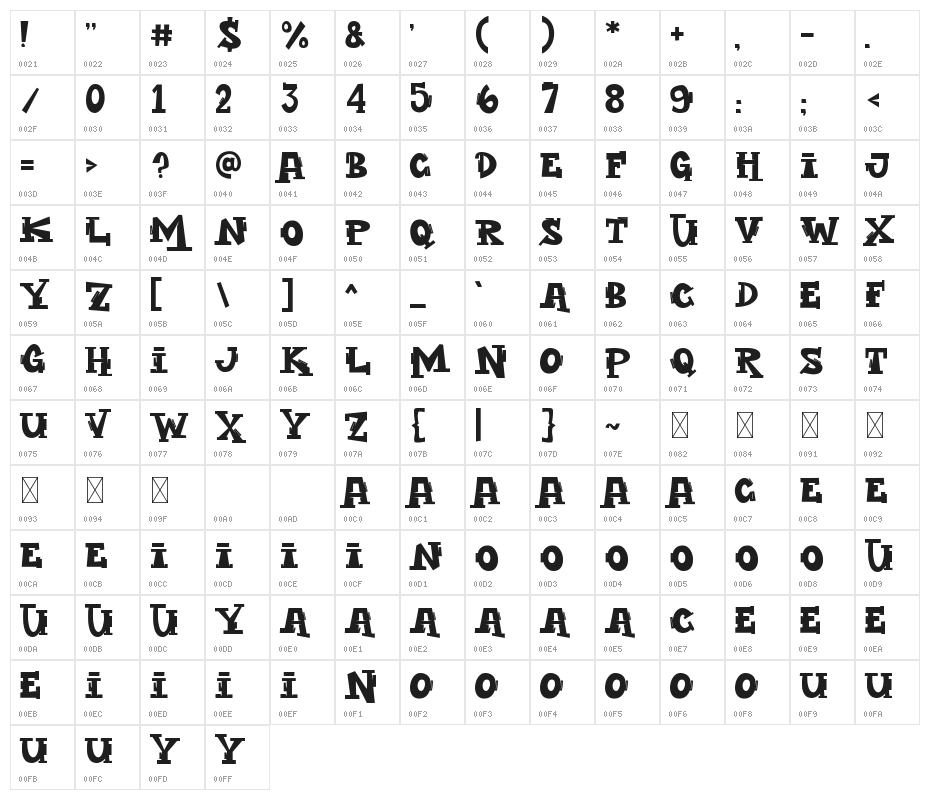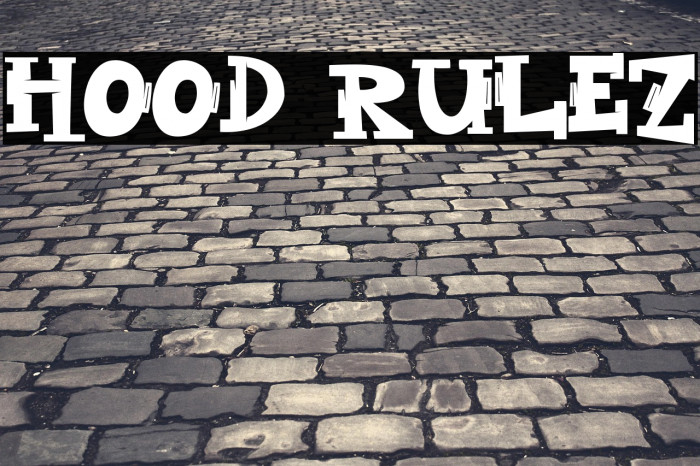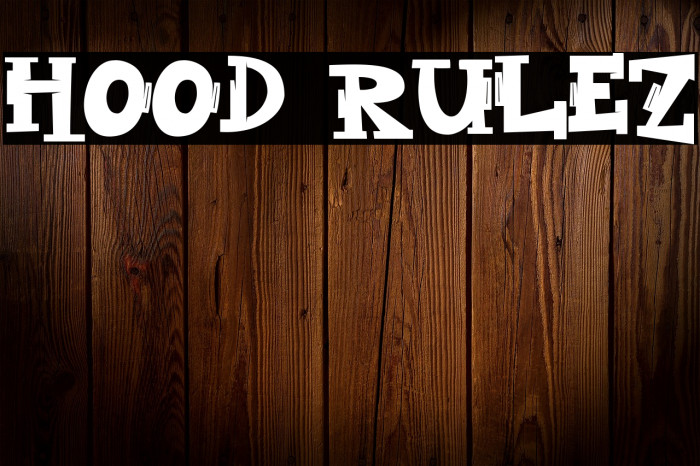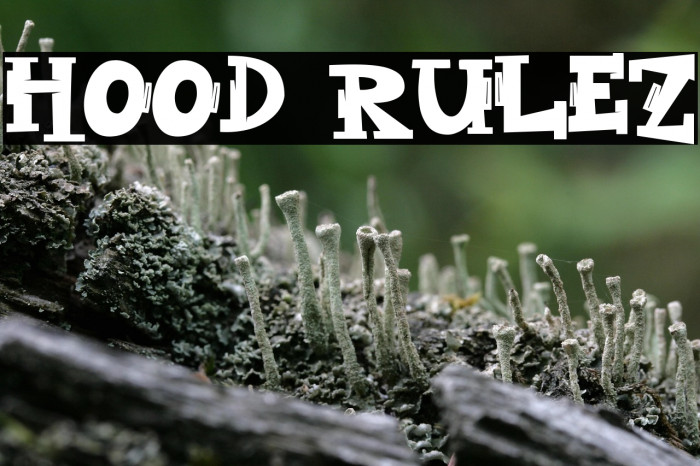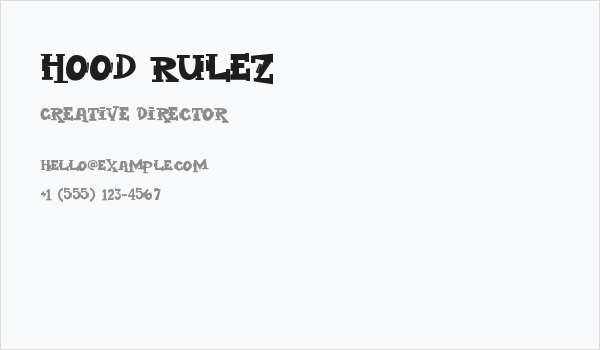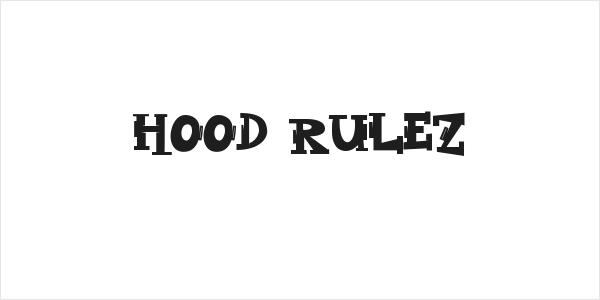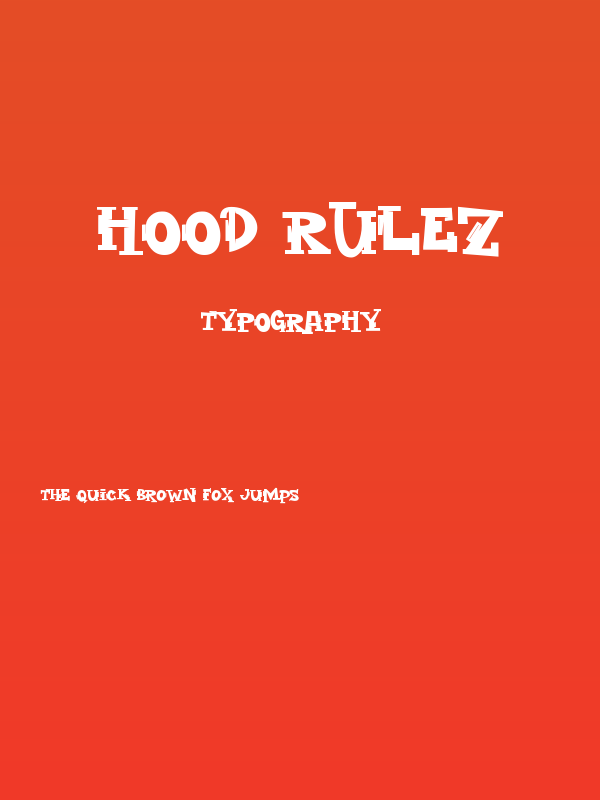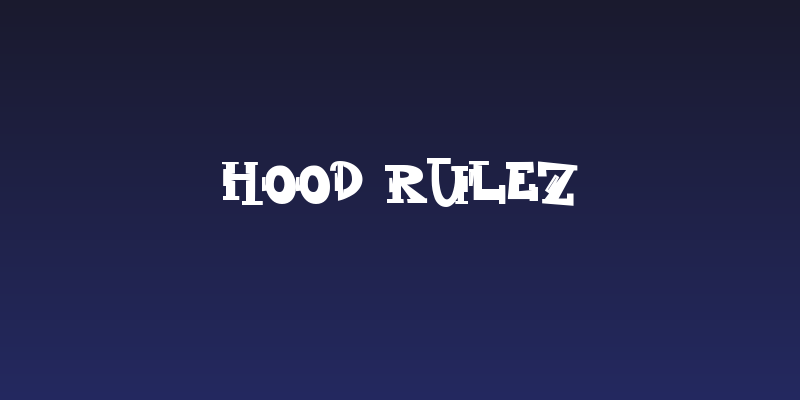
Hood Rulez Font
Hood Rulez Description
This font exhibits a bold and edgy style with a distinct urban flair. The characters are designed with a playful yet aggressive cut, featuring sharp angles and a slightly chaotic arrangement that gives each letter a unique personality. The uppercase and lowercase letters maintain a consistent weight, ensuring readability while adding a touch of rebelliousness. The numbers and special characters follow the same design principles, making them stand out with their bold presence. This font is perfect for projects that require a strong, impactful visual statement.
| Overall Style | Modern, Urban |
| Proposed Projects | Ideal for streetwear branding, music album covers, graffiti art, and urban-themed posters. |